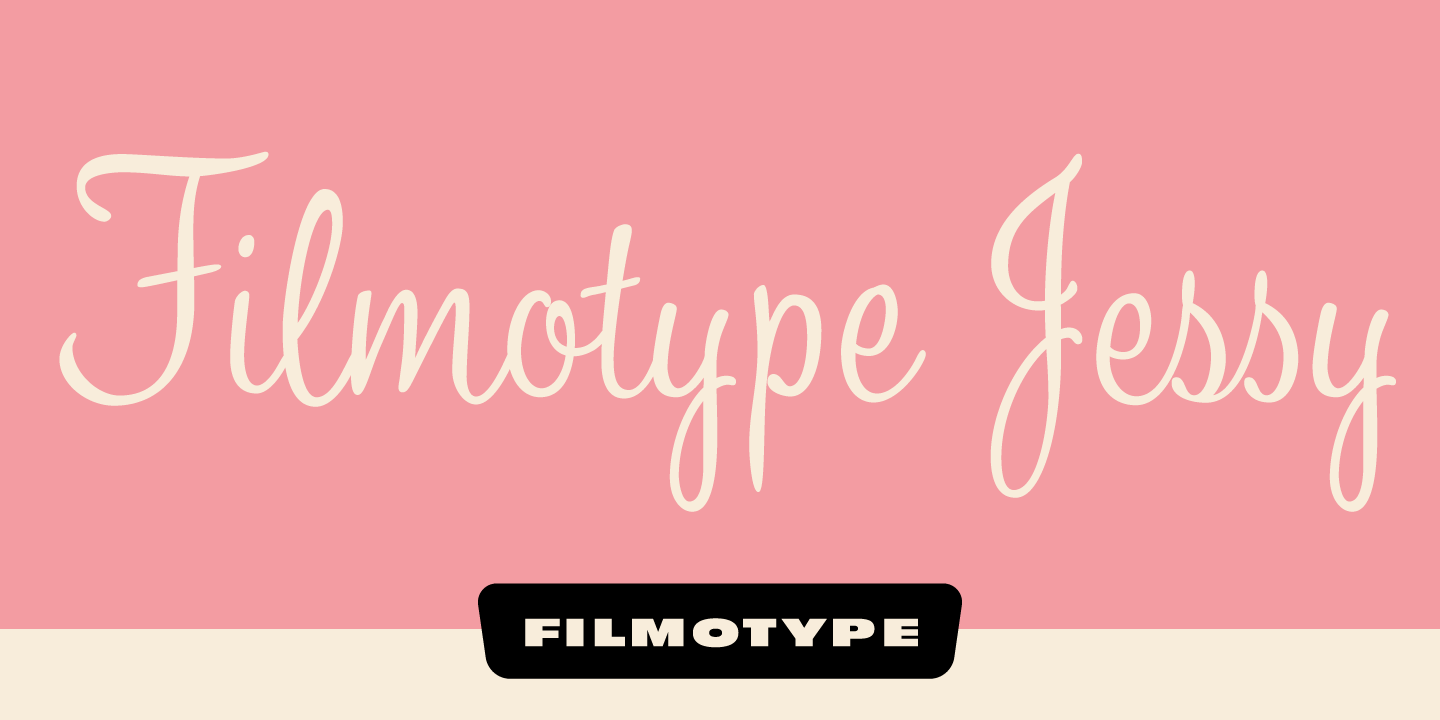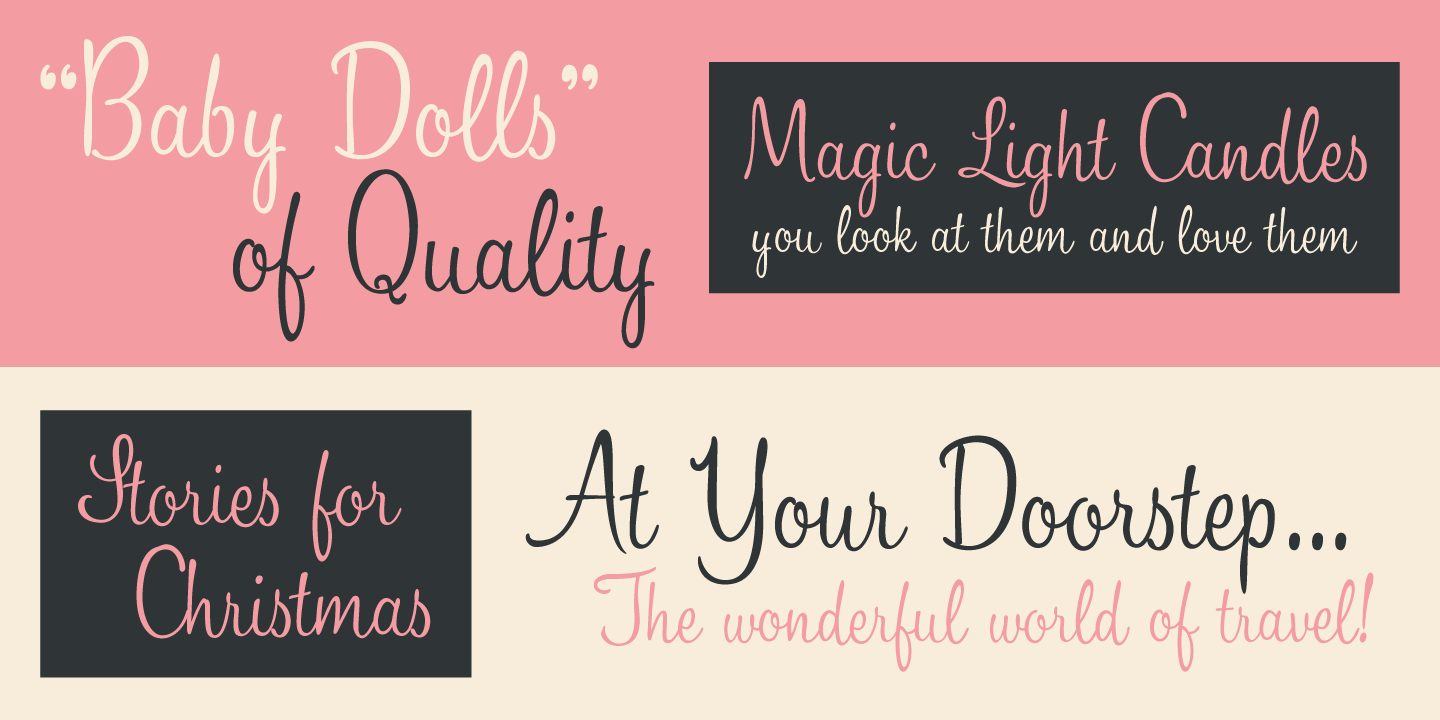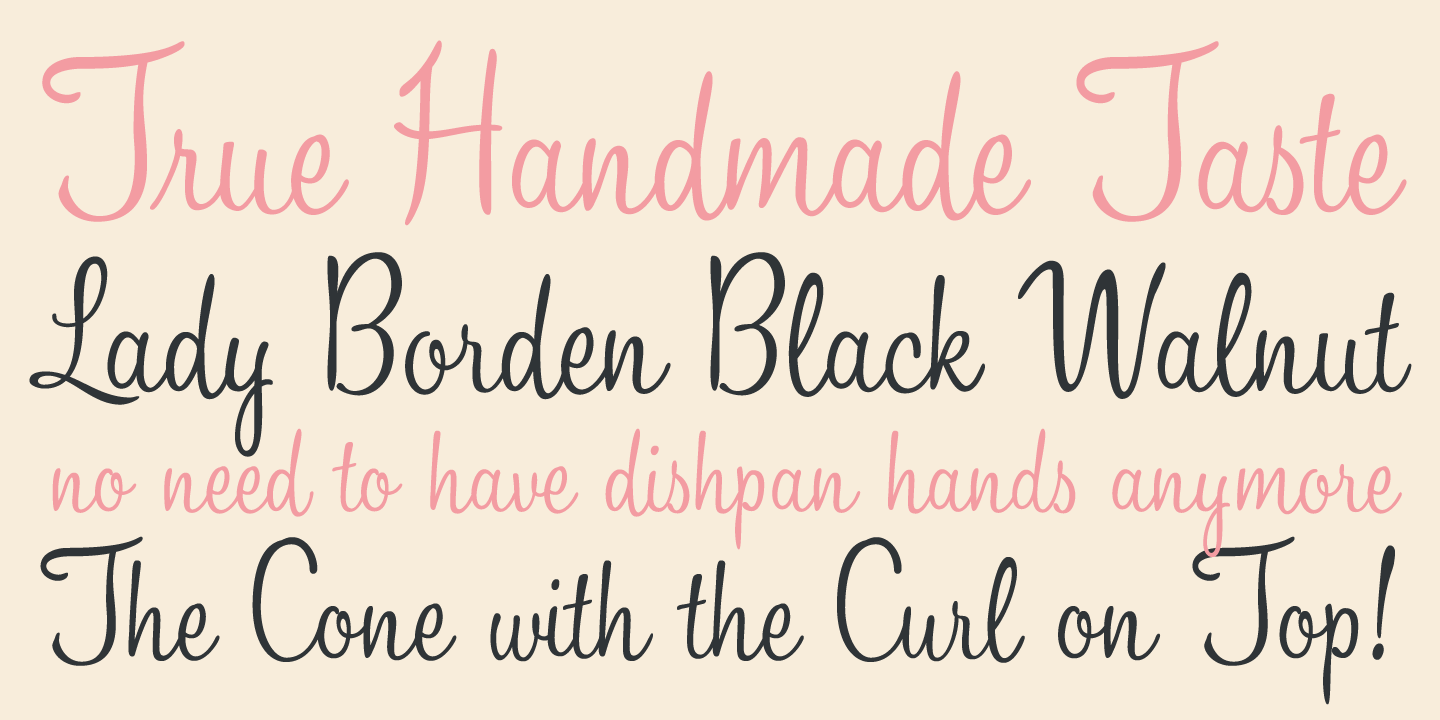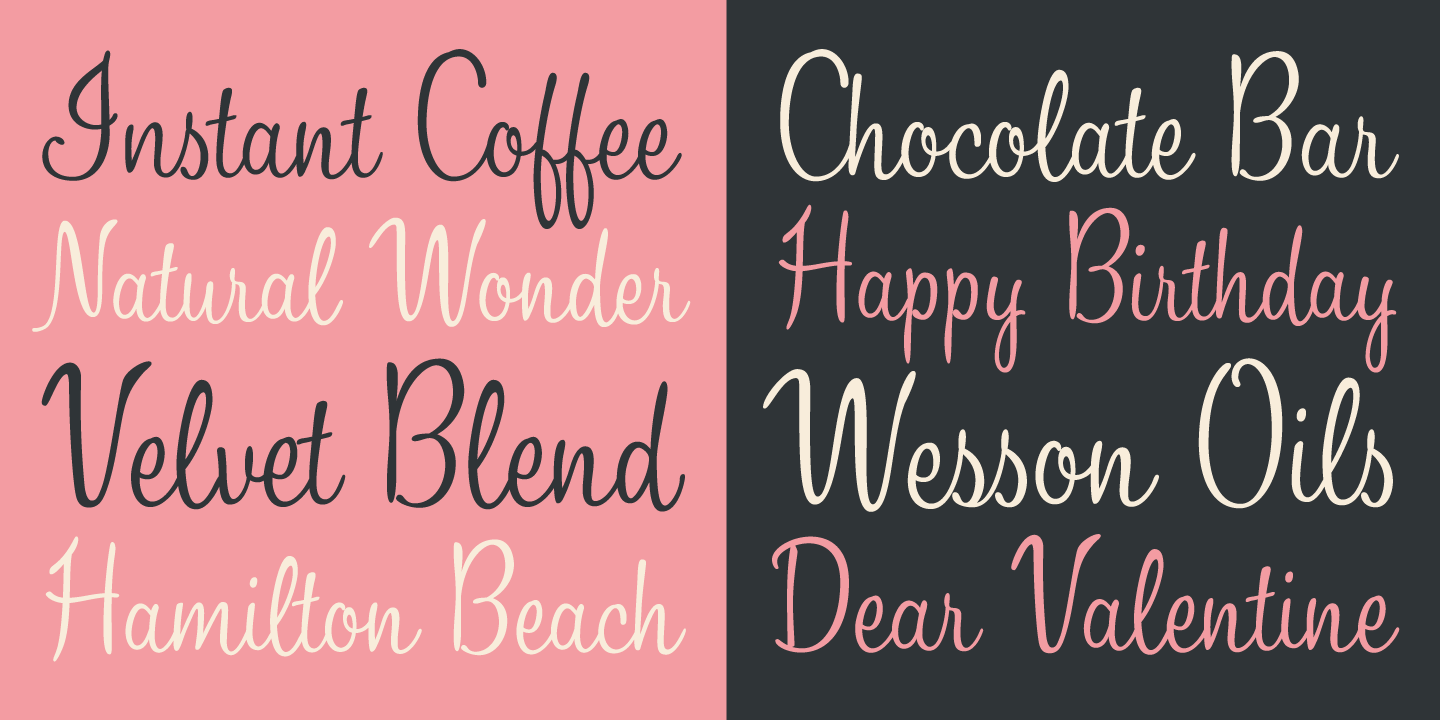
Filmotype Jessy
Filmotype Jessy with its flowing handwritten style was released by Filmotype in late 1950s to expand its Scripts category.
Filmotype Jessy was developed from the original font filmstrips and includes a full international character compliment, automatic fractionals, ordinals, and a very large set of alternate contextual characters and ligatures to allow flawless typesetting in dynamic OpenType format.
The Filmotype Jessy font family includes 593 glyphs.